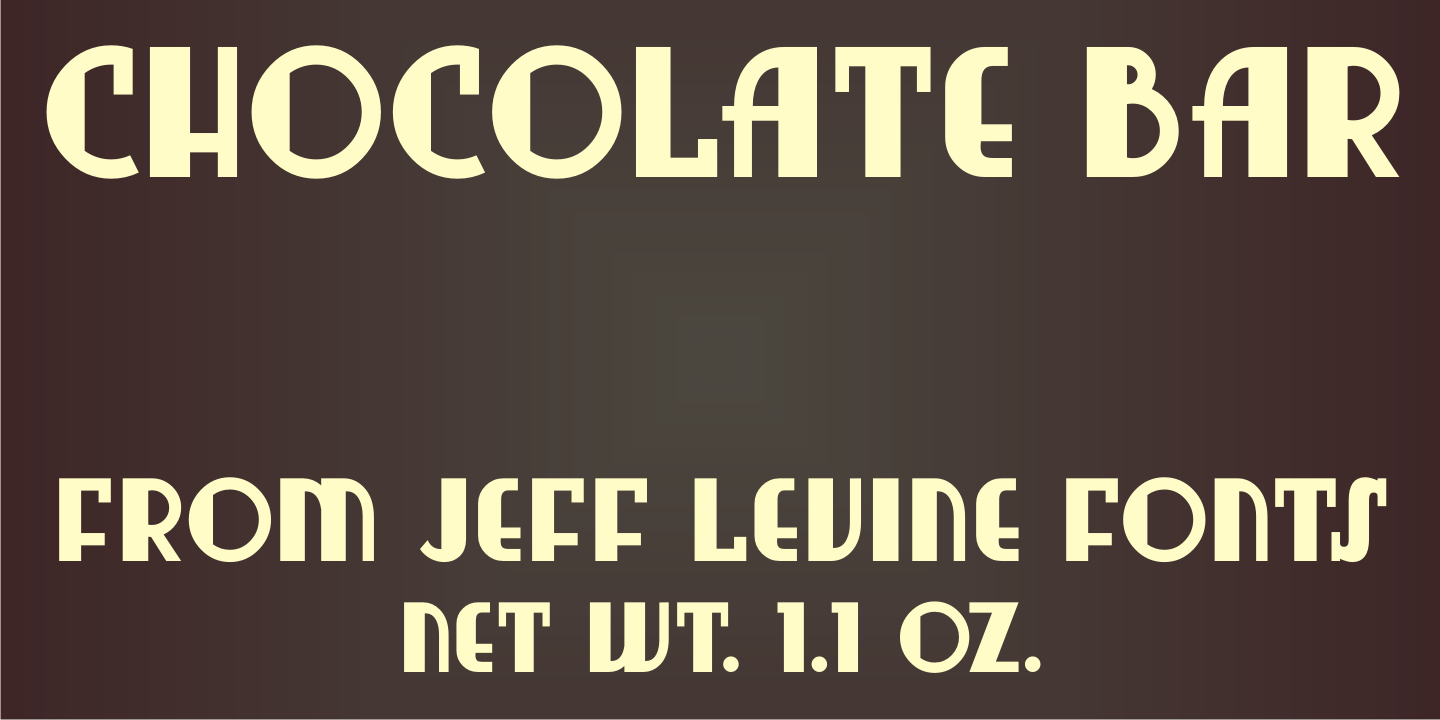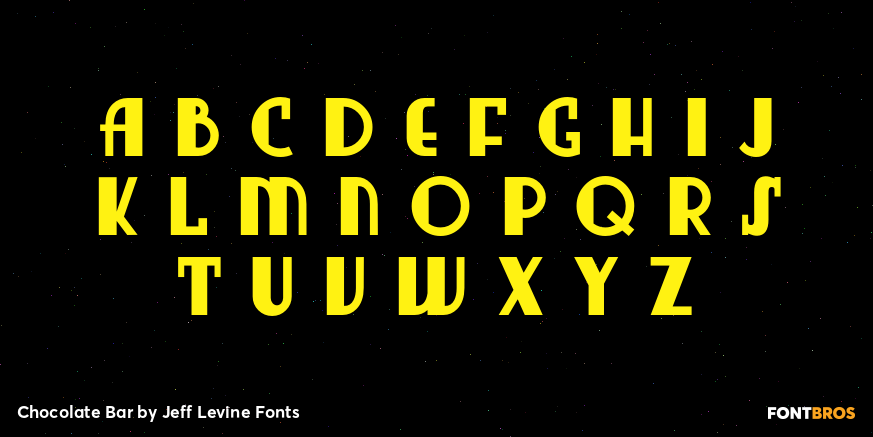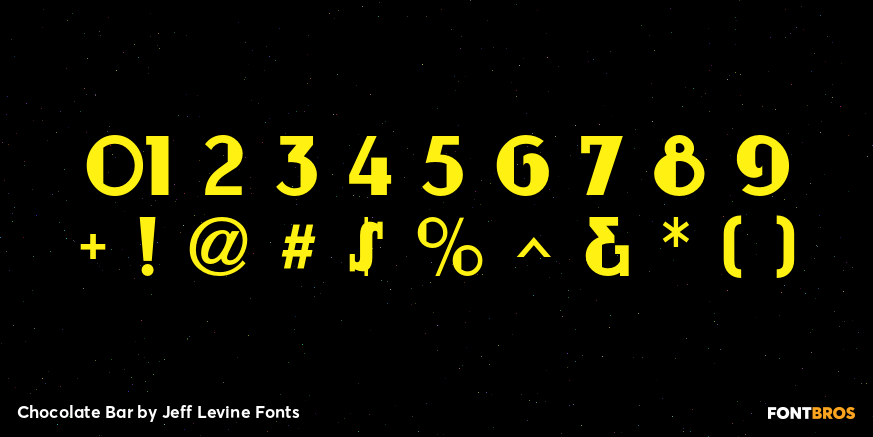
Chocolate Bar
Chocolate Bar JNL emulates hand-lettering on the sheet music for a song selection called 'Shoe Shine Boy” from Connie's Hot Chocolates of 1936 (an all-black musical revue).
The lettering was not found in the song's title, but rather in the name of the show itself.
Chocolate Bar by Jeff Levine Fonts